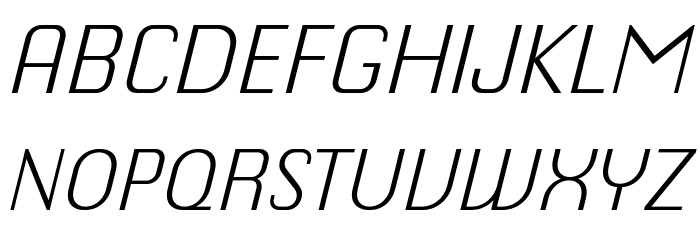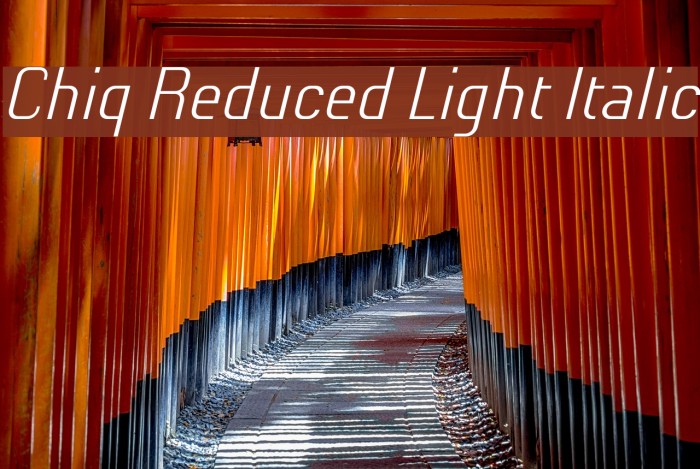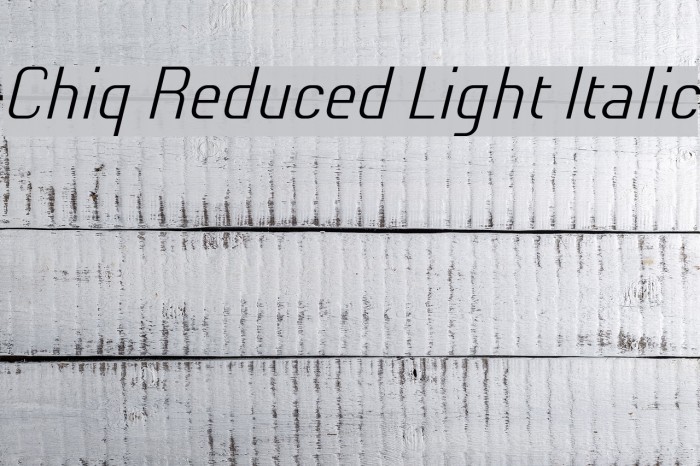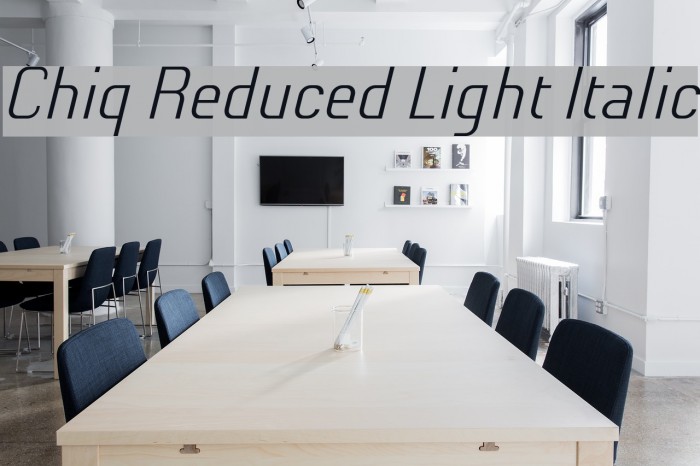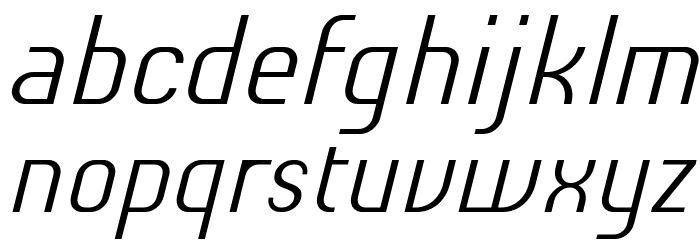
Chiq Reduced Light Italic Font
This font features a sleek and modern design with a light and airy feel. The characters are slightly condensed, giving it a streamlined appearance. The italic style adds a sense of motion and elegance, making it suitable for dynamic and contemporary designs. The strokes are consistent and smooth, with a medium contrast that enhances readability while maintaining a stylish look. The font's clean lines and geometric shapes contribute to its modern aesthetic, making it versatile for various design applications.
A sleek, modern, and italic font with a light and airy feel.
• Proposed Projects: Ideal for branding, editorial design, fashion magazines, and modern web design.
• Category: Sans-Serif
• Bold: No
• Italic: Yes
• Weight: Light
• Width: Condensed
• Character Spacing: Normal
• Contrast: Medium
• Overall Style: Modern
• Use Case: Headlines, Body text, Logos